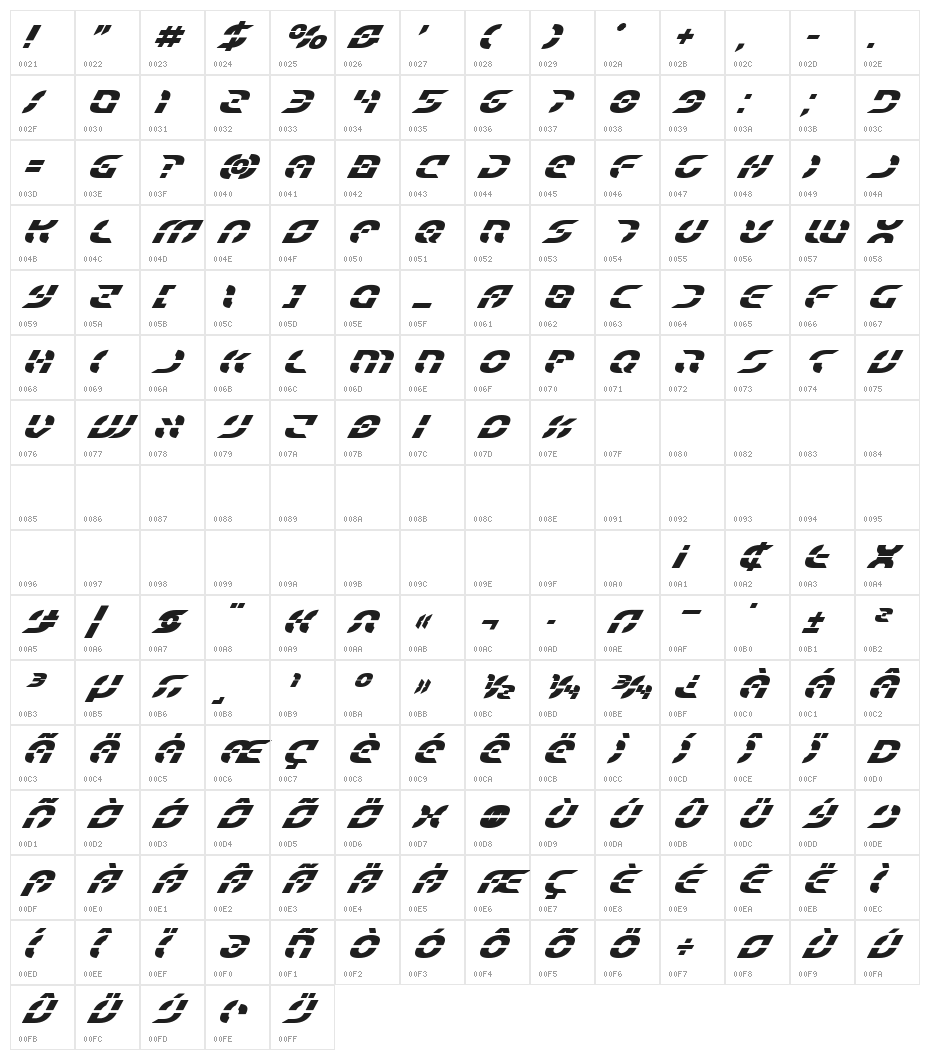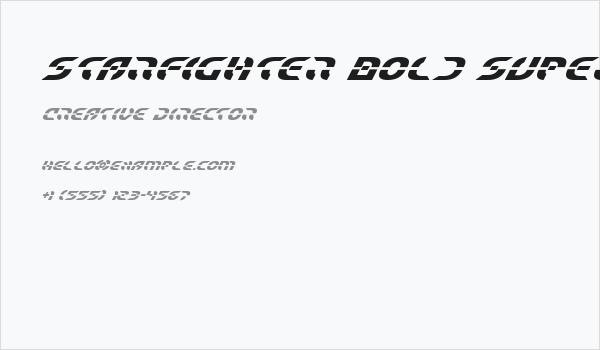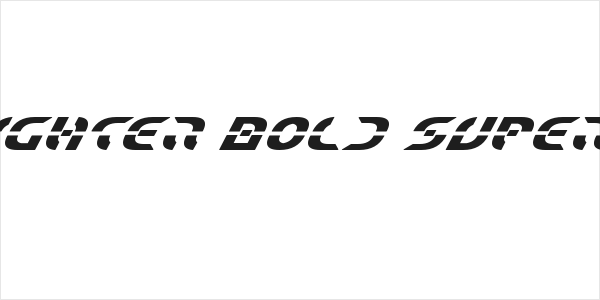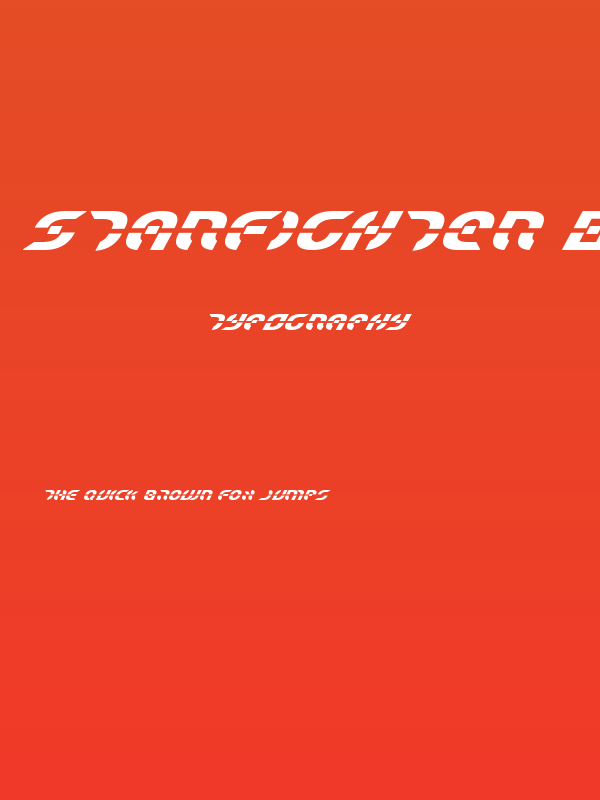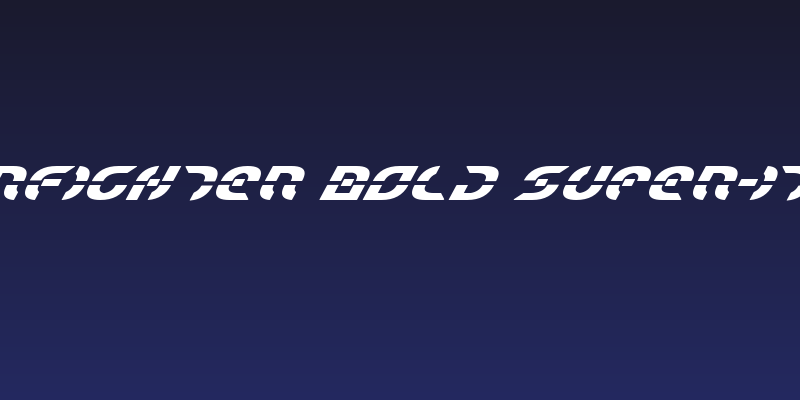
Starfighter Bold Super-Italic Font
Starfighter Bold Super-Italic Description
This font exhibits a futuristic and dynamic style, characterized by its bold and italicized letterforms. The design features sharp angles and a sense of motion, making it ideal for projects that require a modern and energetic appearance. The uppercase and lowercase letters maintain a consistent slant, enhancing the italic effect. The numbers and special characters are designed to match the overall aesthetic, ensuring uniformity across all text elements. The font's unique style is suitable for eye-catching headlines and logos, where a strong visual impact is desired.
| Proposed Projects | Ideal for sci-fi themed designs, video game titles, technology branding, and dynamic posters. |